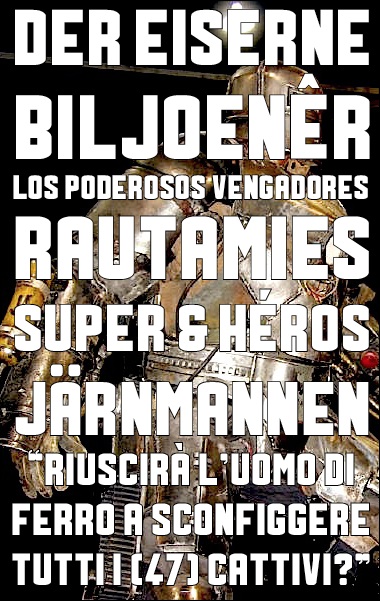
I needed to do something simple. It’s inspired by the Iron Man movie logo (I got curious after seeing this font).
Wow! I think the M could use a more flat point (maybe use 1:4)
For M, I followed the wordmark (which was somewhat beveled, so it could be that M wasn’t really pointed). That said, in order to preserve a sane spacing, a quarter flat point would mean two 1/8 pieces with matching diagonals. I could try, but probably not now ;-)
Beautiful! Fantastic @.
The @ blew my mind. Amazing font
The @ was inspired by Doyald Young (http://www.myfonts.com/fonts/doyald-young/home-run/script-roman/glyphs/394983/48) via Pablo Impallari.